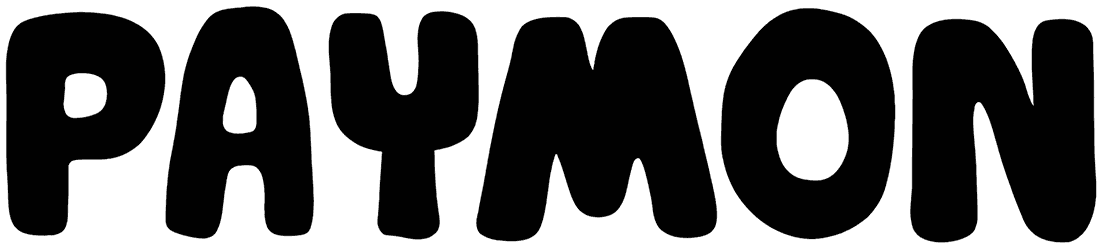
Paymon Font
Paymon is a beautiful cartoon font that due to its childish look, can broaden your horizons and lets you design high-end graphic content including children’s book illustrations, covers, logos, restaurant menus, and gift…
Paymon is a beautiful cartoon font that due to its childish look, can broaden your horizons and lets you design high-end graphic content including children’s book illustrations, covers, logos, restaurant menus, and gift cards. Although it doesn’t support numbers, it still adds a sense of playfulness, drama, dynamism, and love.